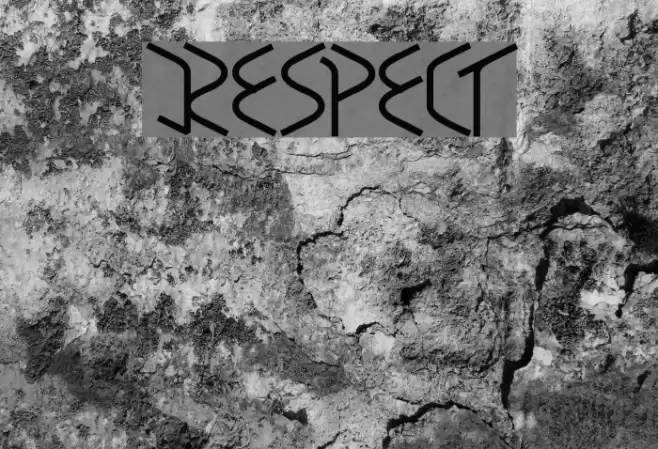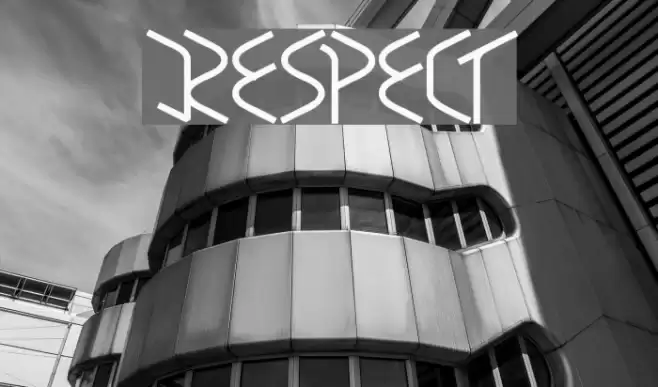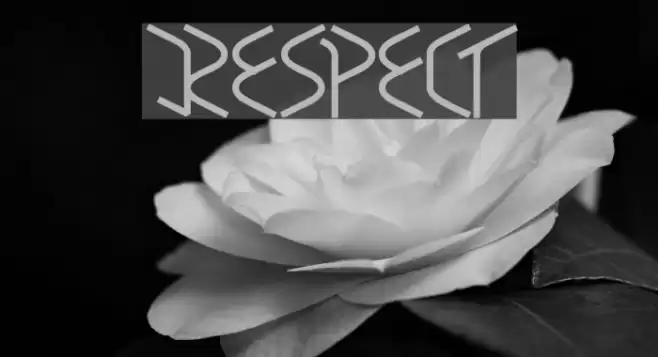
Respect Font
Respect Description
This font features a unique, geometric design with angular lines and sharp edges, creating a futuristic and modern appearance. The characters are constructed with a consistent stroke width, giving the font a uniform look. The uppercase letters are particularly striking, with their bold and dynamic shapes. The design is clean and minimalistic, yet it maintains a strong visual impact. The font's style is reminiscent of digital or sci-fi themes, making it suitable for projects that require a contemporary and edgy aesthetic.
A geometric, futuristic font with angular lines and a modern aesthetic from Uncategorized fonts.
- Proposed Projects: Ideal for sci-fi themed designs, technology branding, modern posters, and digital media.